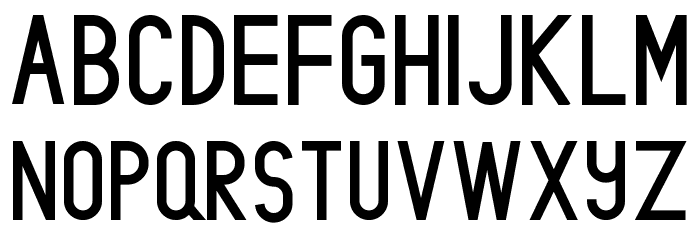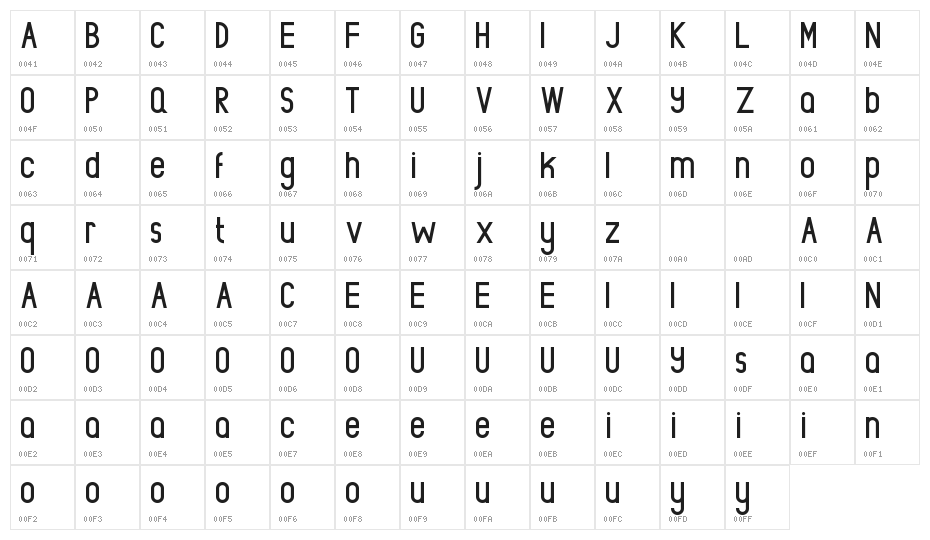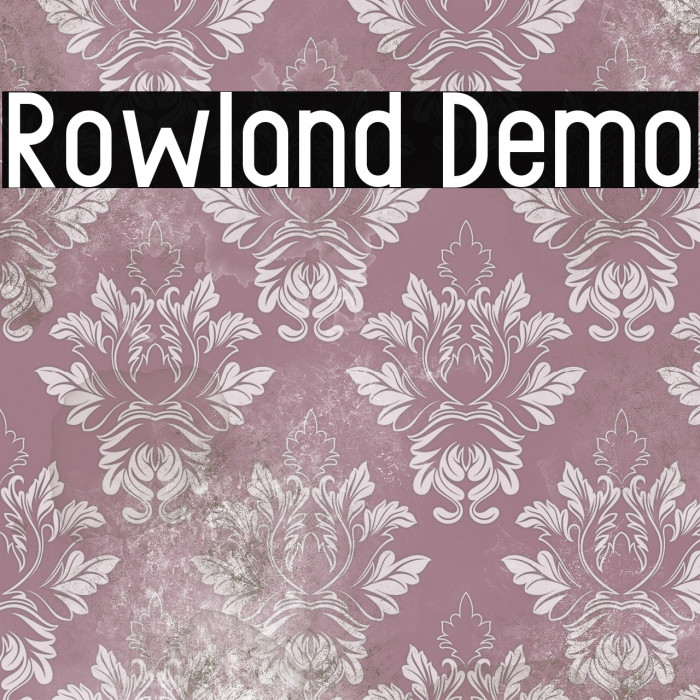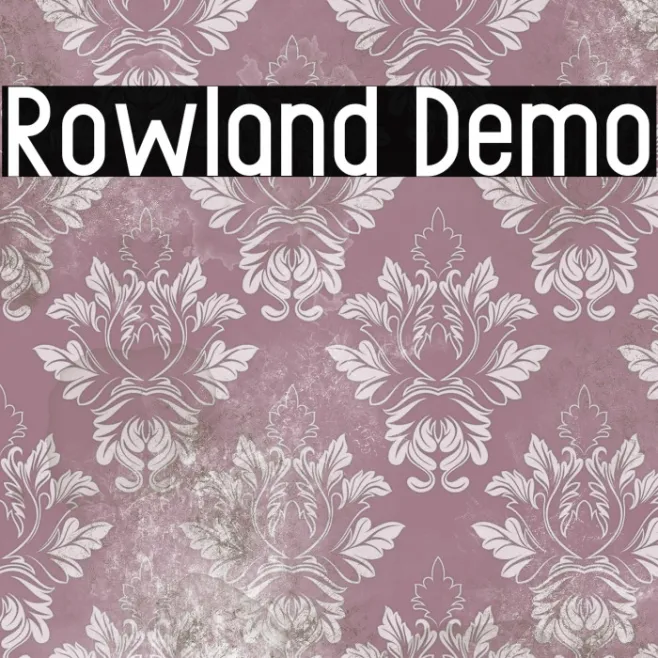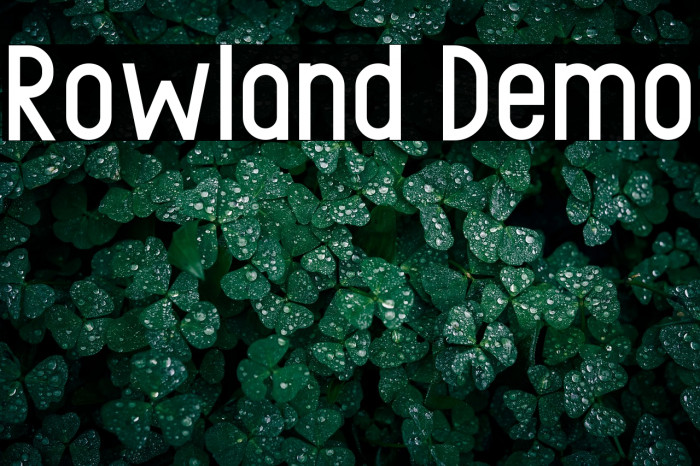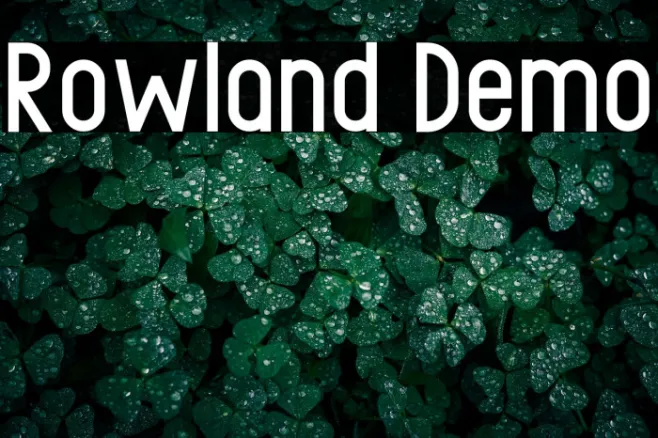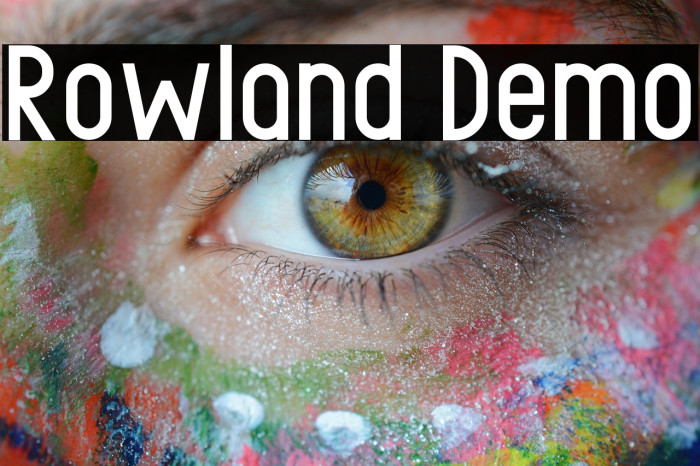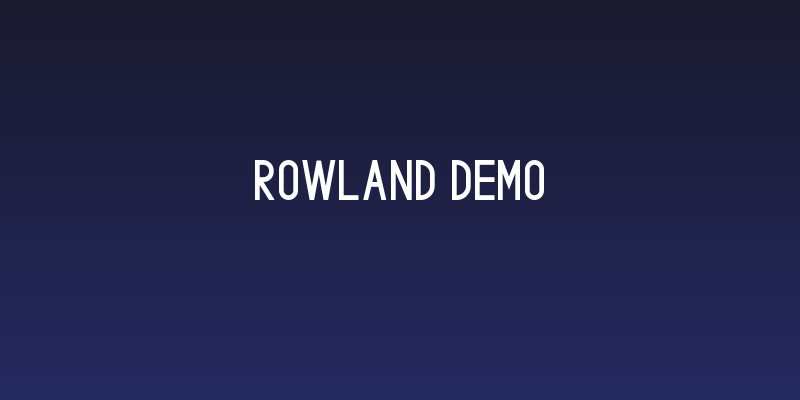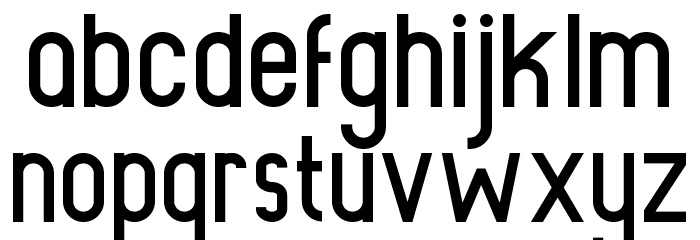
Rowland Demo Font
Rowland Demo Description
This font features a clean and modern sans-serif style with a geometric structure. The characters are uniform in width, providing a balanced appearance. The uppercase letters are tall and slightly condensed, while the lowercase letters maintain a consistent height, enhancing readability. The font exhibits a medium contrast in stroke thickness, contributing to its contemporary look. The overall design is straightforward yet elegant, making it versatile for various applications. Its simplicity and clarity make it suitable for both digital and print media, ensuring legibility across different sizes and formats.